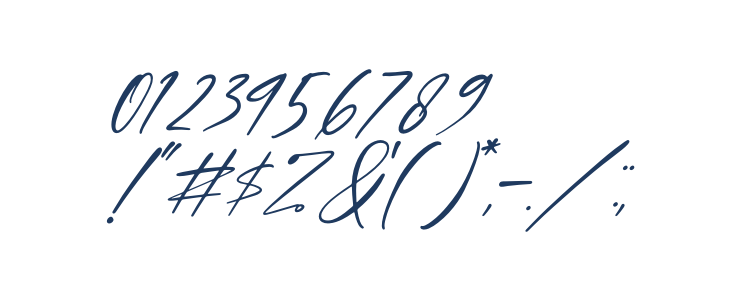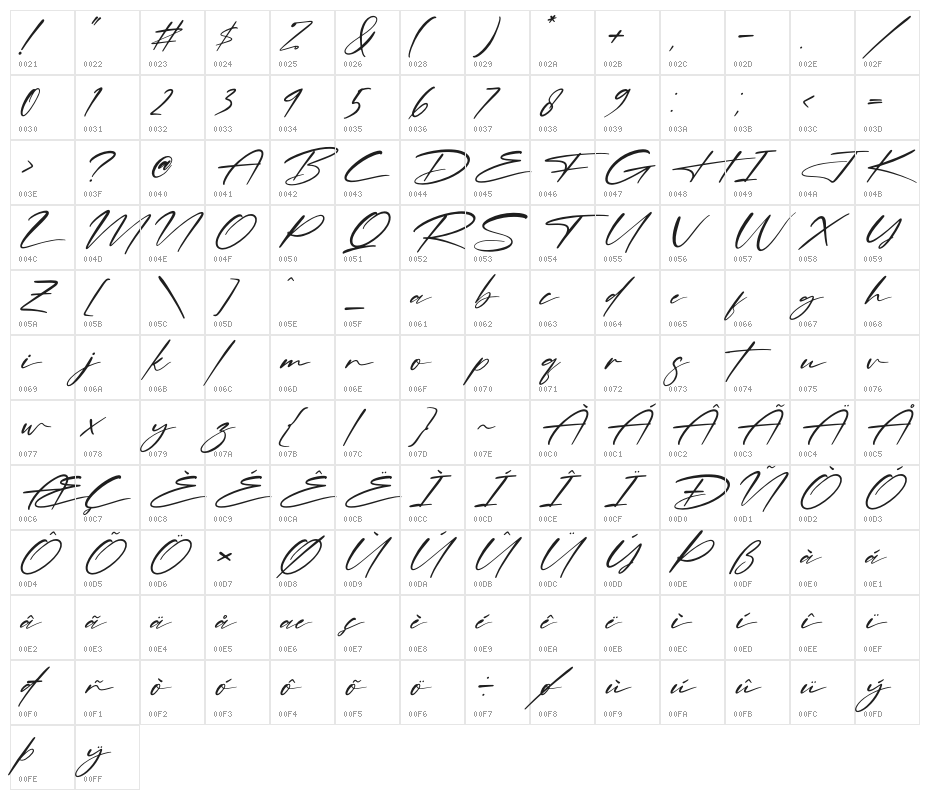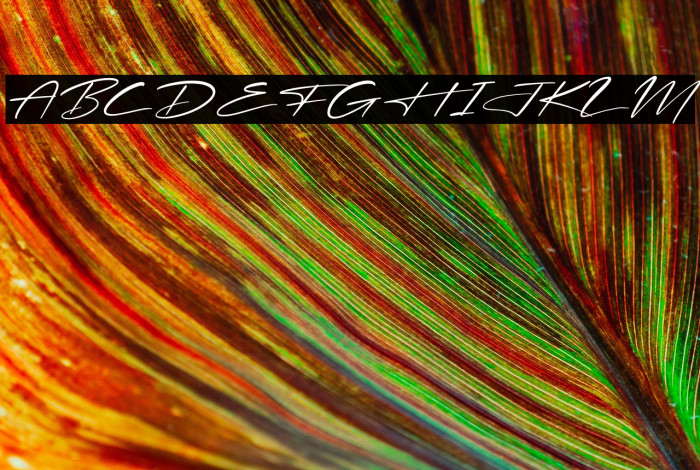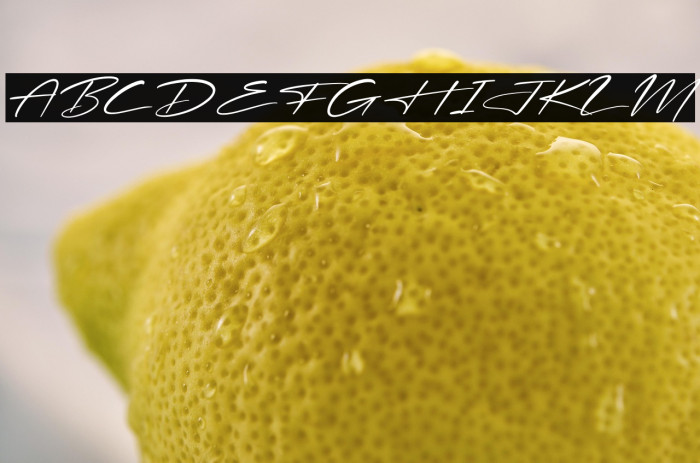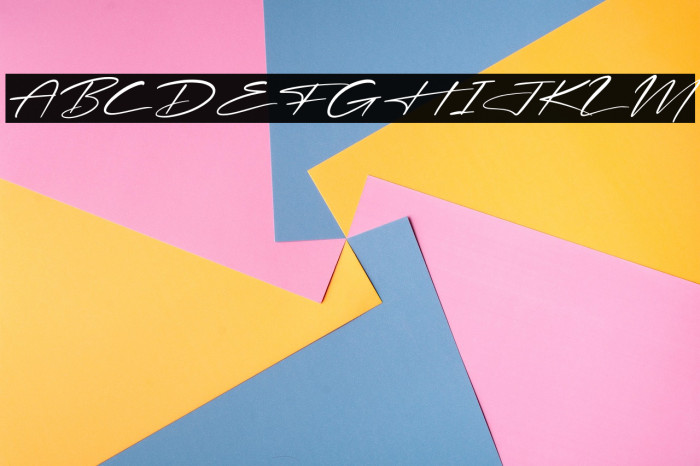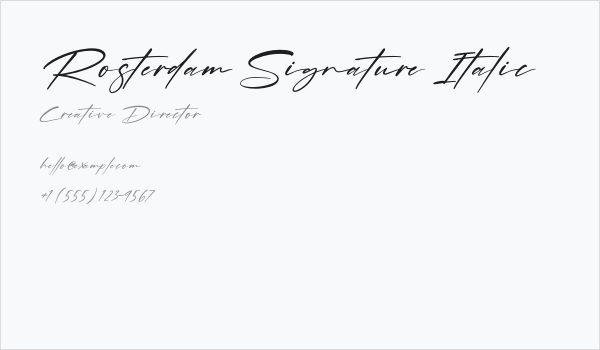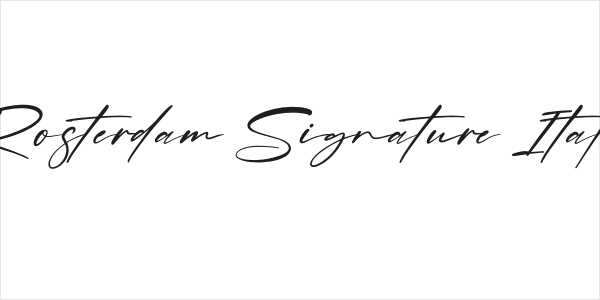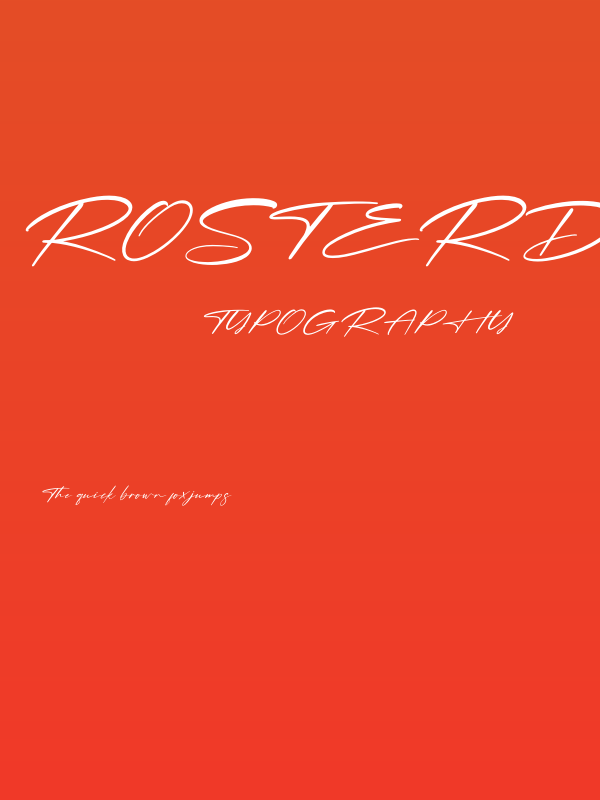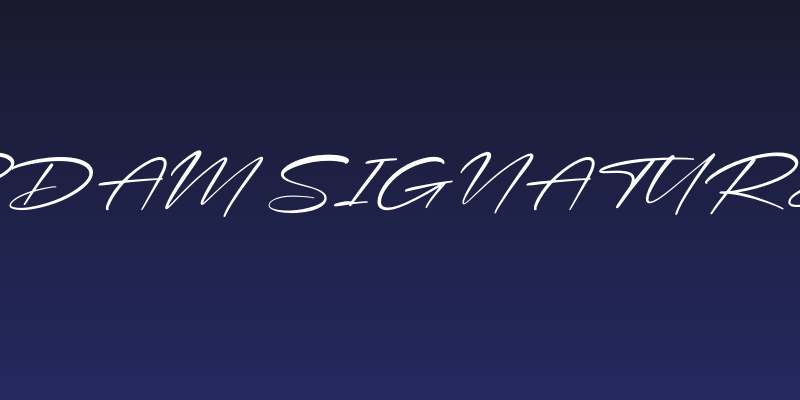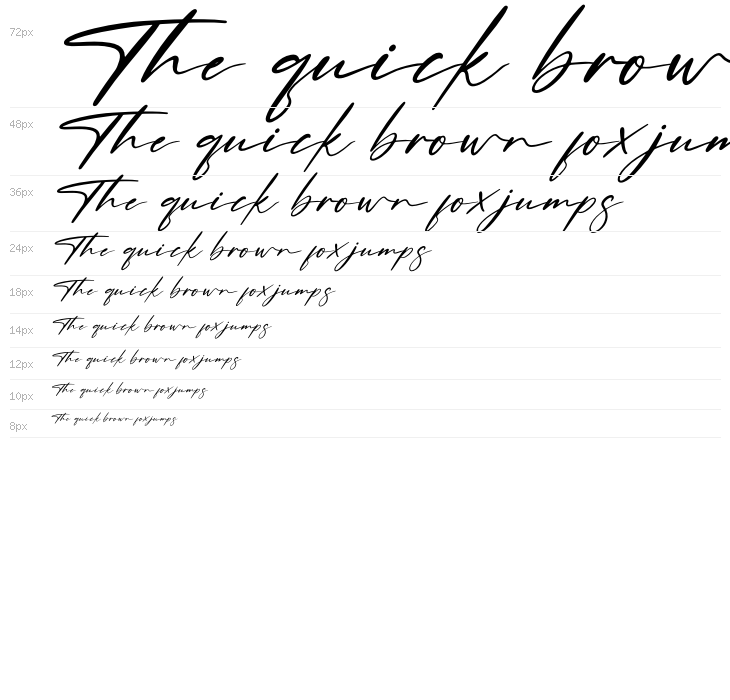
Rosterdam Signature Italic Font
Rosterdam Signature Italic Description
This font exudes elegance and fluidity, characterized by its cursive, handwritten style. The letters are connected with smooth, flowing strokes, giving it a personal and sophisticated touch. The uppercase letters are slightly more structured, while the lowercase letters exhibit a more relaxed and natural flow. The numerals and special characters maintain the same fluidity, ensuring consistency across all characters. This font is perfect for projects that require a personal, elegant, and artistic touch, such as invitations, greeting cards, and branding materials.
| Proposed Projects | Ideal for wedding invitations, personal branding, greeting cards, and artistic projects. |